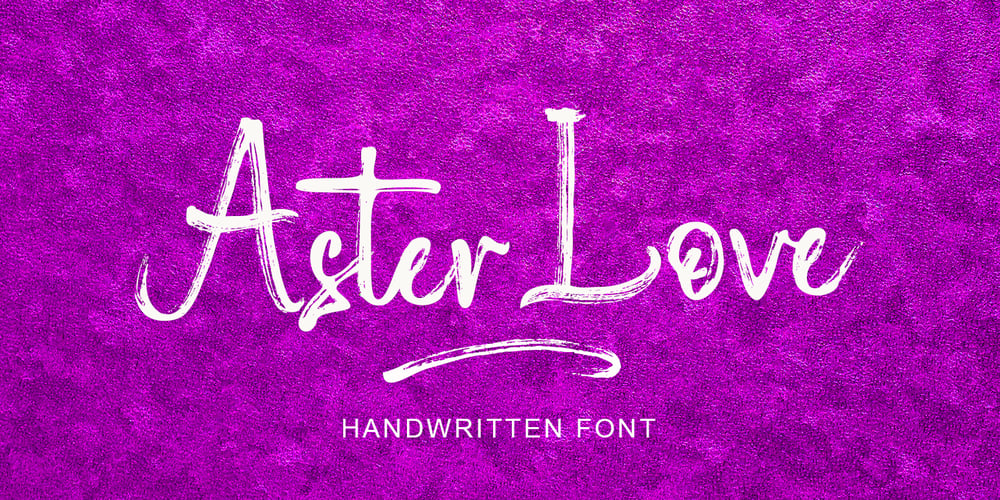
Aster Love Font Family was designed by Yur Lis and published by Stripes Studio. Aster Love contains 2 styles and family package options. Aster Love is a brushed, attractive font with a natural, detailed and perfect texture and additional Aster Love Underlines.It’s perfect for brand projects, logos, product packaging, posters, invitations, greeting cards, news, blogs, everything including personal charm, and more.